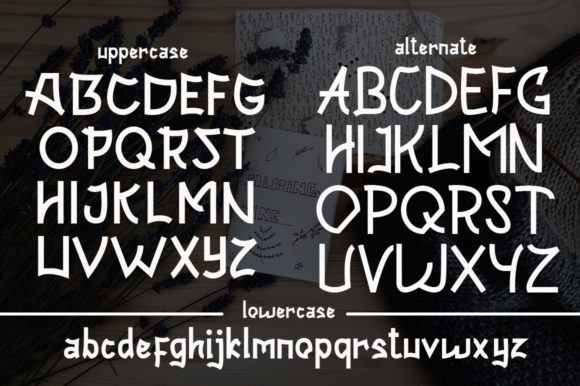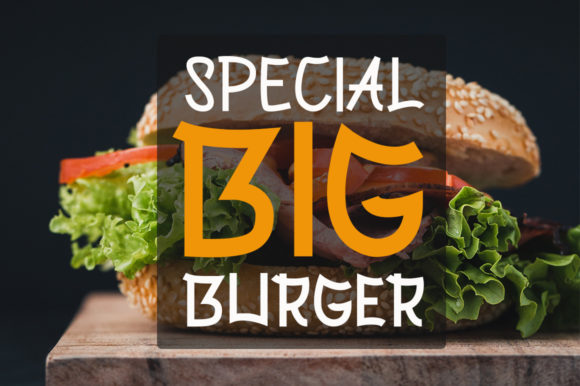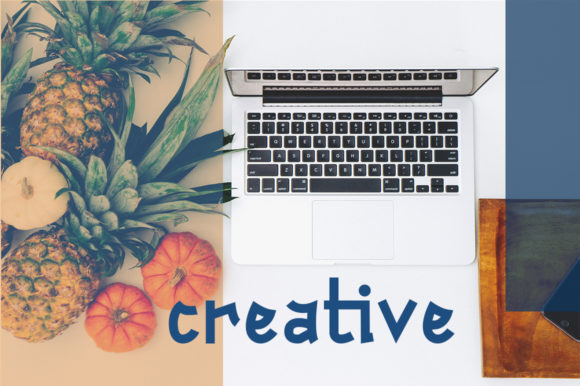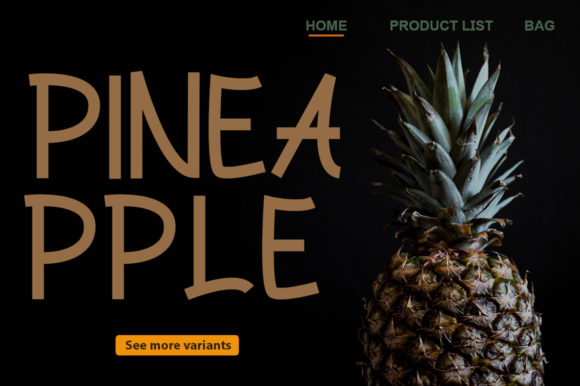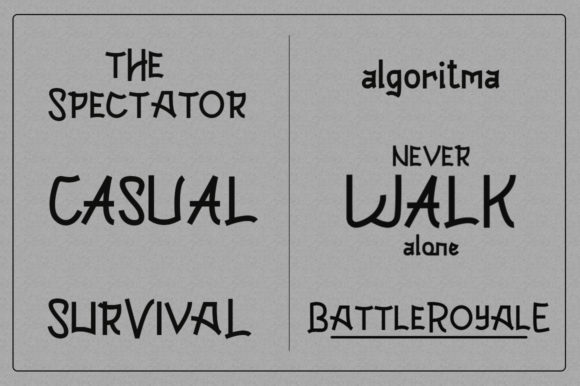
Introduction to Respecty Font
You know that feeling when you’re brainstorming ideas for a creative project and suddenly a spark of inspiration hits you? The words start flowing, and you can almost see the design taking shape in your mind. It’s a magical moment that every designer dreams of, and the right tools can make all the difference. One such tool that can elevate your design game is the Respecty Font – a fun and playful handwritten font that’s perfect for adding a personal touch to your work.
Whether you’re working on a high-quality design project or simply need a design resource to add some flair, Respecty Font is a valuable addition to your toolkit. Its casual vibe and unique style make it an ideal choice for a variety of creative projects. And the best part? It’s available for free download, so you can start experimenting with it right away. Plus, with a transparent background, you can easily integrate it into your designs without any hassle.
Key Features of Respecty Font
- High-quality design: Respecty Font is a premium design resource with a unique, creative style perfect for various projects.
- Unique characteristics: Respecty Font features a distinctive, elegant style with intricate details, making it ideal for creative projects that require a touch of sophistication.
Honest Review: Respecty Font
As a designer, I’ve had the opportunity to work with a wide range of fonts, but Respecty Font has truly stood out to me. I downloaded it for free, which was a great bonus, and I was blown away by its high quality. The designer has done an excellent job creating a versatile font that’s perfect for any creative project.
What works well with Respecty Font is its elegant and modern design. It’s a great addition to any design resource, and its transparent background makes it easy to work with. I’ve used it for several projects, and it’s always delivered consistent results. The font is also highly customizable, which is a major plus.
- ✨ Elegant and modern design
- ✨ Highly customizable
One thing to note is that Respecty Font may not be suitable for all types of projects. It’s best used for creative projects that require a touch of elegance and sophistication. If you’re looking for a font for a more casual project, you may want to consider something else.
Overall, I’m extremely impressed with Respecty Font. It’s a high-quality font that’s perfect for designers who want to add a touch of sophistication to their creative projects. I highly recommend it as a design resource.
Tips for Getting the Most Out of Respecty Font
To get the most out of Respecty Font, use it sparingly to create visual interest. Pair it with a clean background to make it stand out. Experiment with different font sizes and colors to achieve the desired effect.
The Respecty Font is ideal for designing social media graphics, blog posts, and presentations. Its high-quality design and transparent background make it perfect for creating visually appealing content.